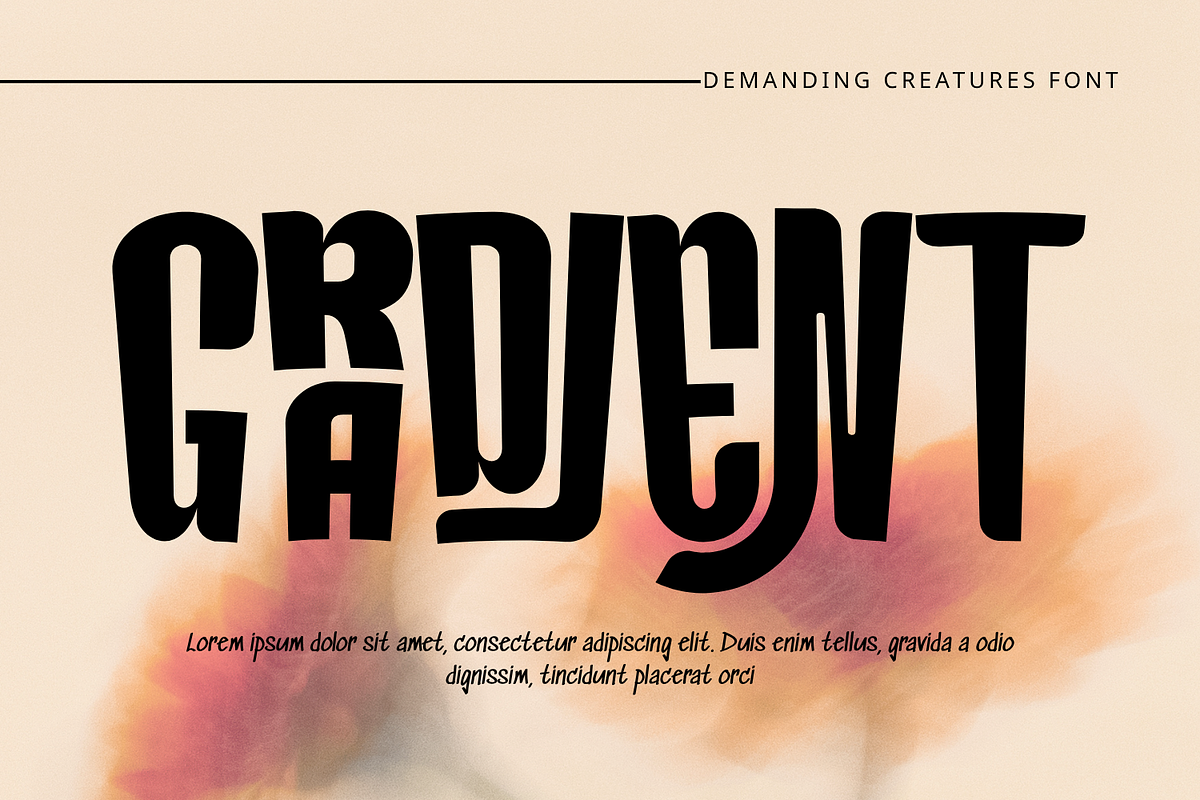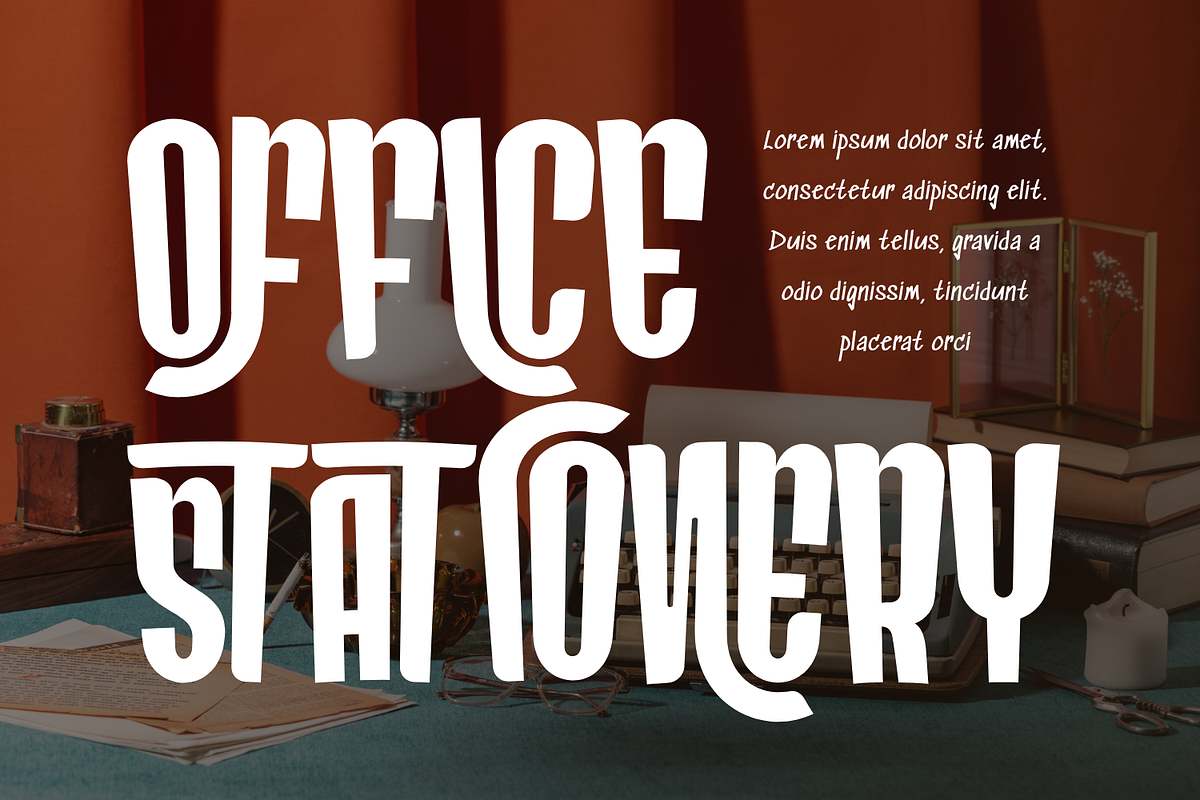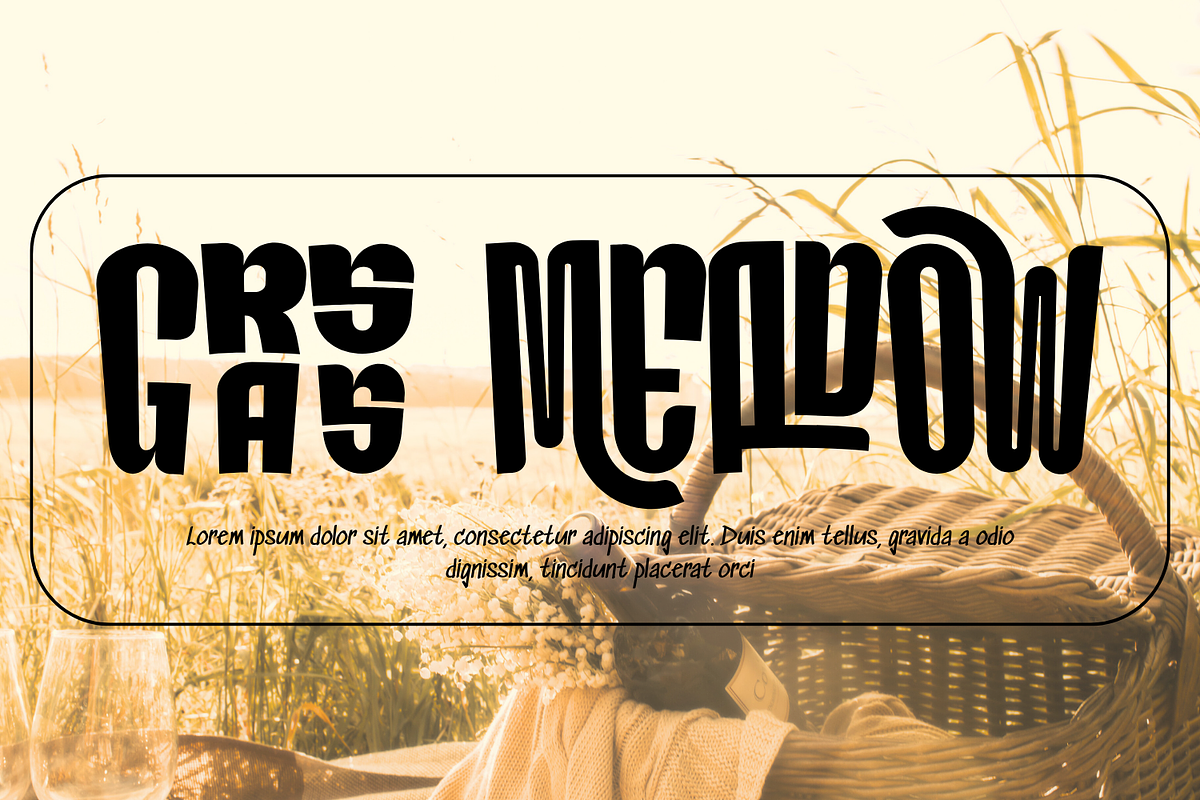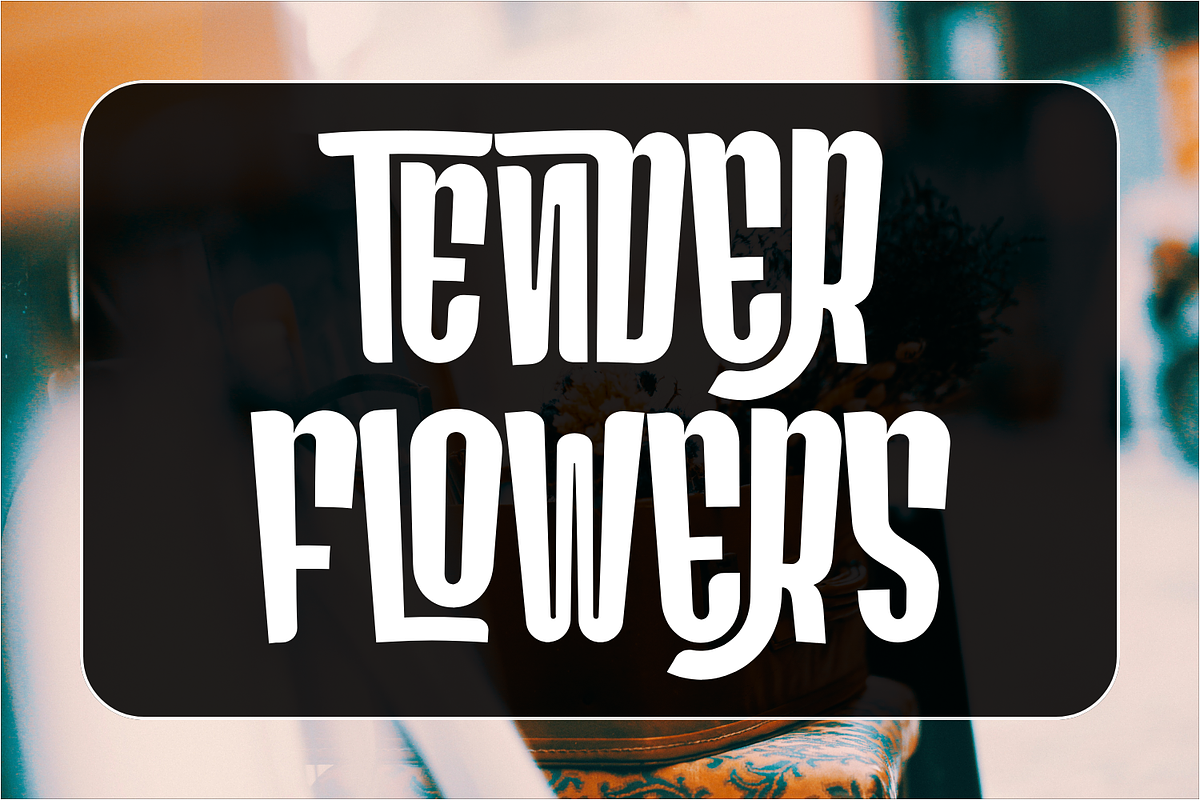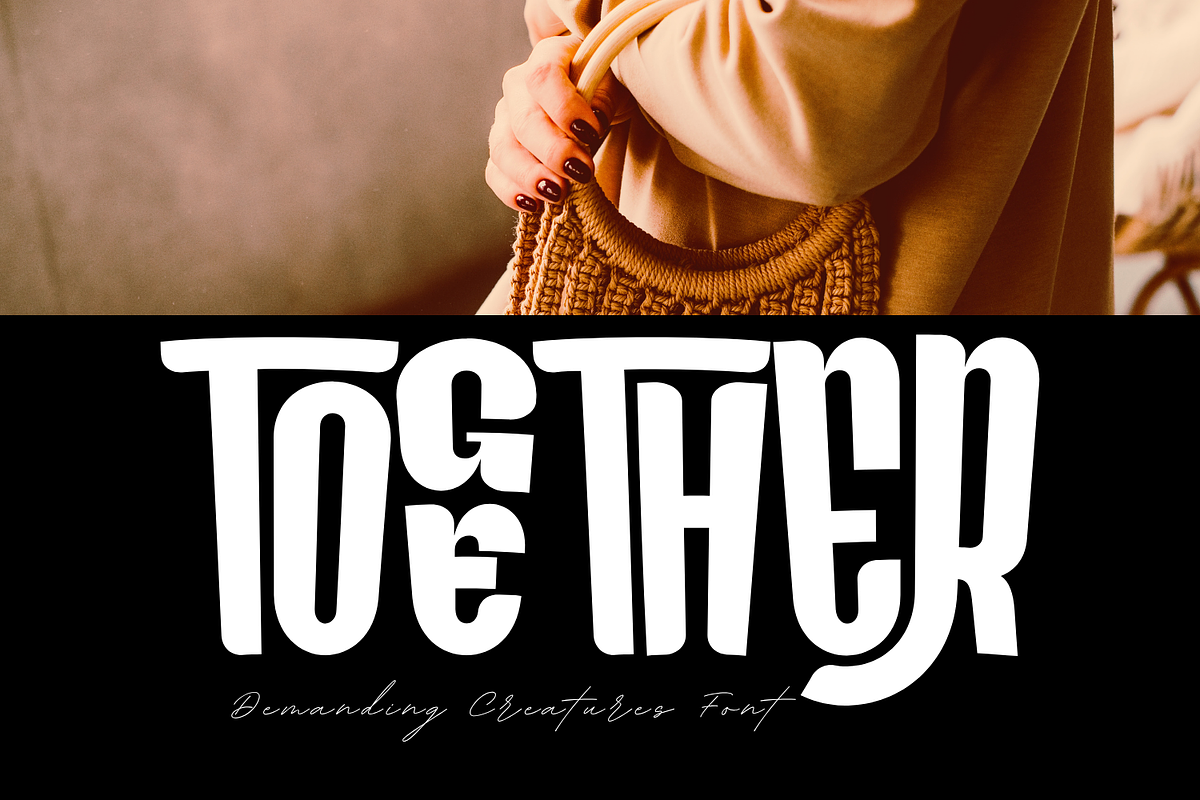
DEMANDING CREATURES - CONDENSED FONT
DEMANDING CREATURES - CONDENSED FONT is a stylish retro condensed display font inspired by vintage poster typography and groovy design aesthetics. Featuring tall, narrow letterforms with soft curves and subtle irregular details, this typeface creates a unique and eye-catching rhythm. Its elongated structure gives a strong vertical presence, while the rounded edges add warmth and personality. DEMANDING CREATURES strikes a perfect balance between boldness and elegance, making it ideal for posters, branding, packaging, editorial headlines, and creative projects that seek a nostalgic yet modern touch.
🔤Features:
Uppercase & Lowercase Letters
Around 100 Special Ligatures & Alternates
Accented Characters for multilingual support
🔤About 100 ligatures combined with Stylistic Alternates Font:
AC AD AL AN AR AS AT AU AV BE CA CE CH CO CT DE DI EA EC ED EE EL EM EN EP ER ES ET FE FO FR GE HA HE HI HO IE IC IL IN IO IR IS IT JU KE LA LE LI LL LO LY MA ME MI NC ND NE NG NO NT NS OC OF OM ON OO OP OR OT OU OW PA PR RA RD RE RI RO RS RT SE SH SI SO SS ST TA TE TH TI TO TR TT UM UN UR VE WI WO